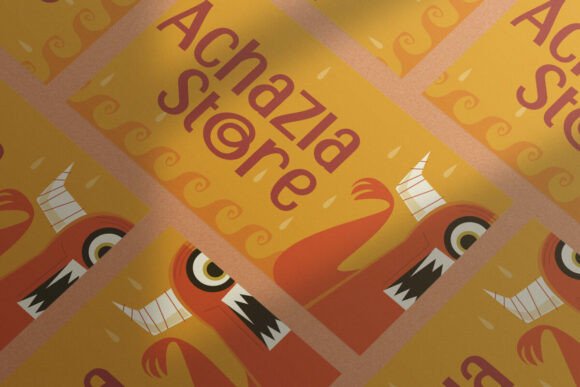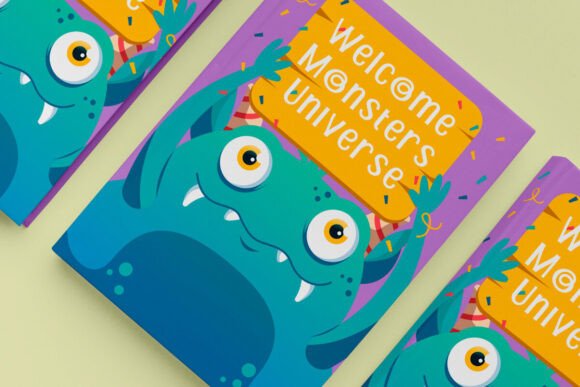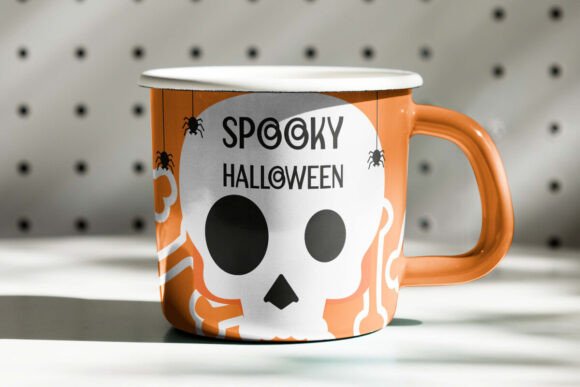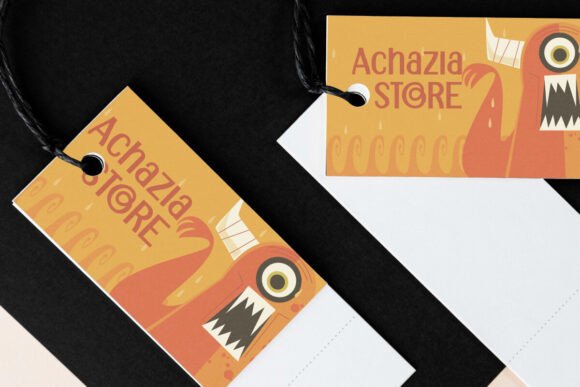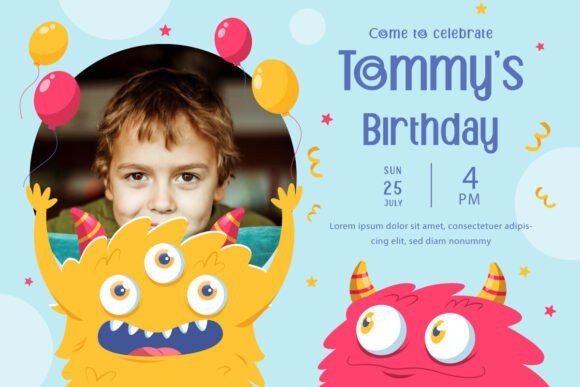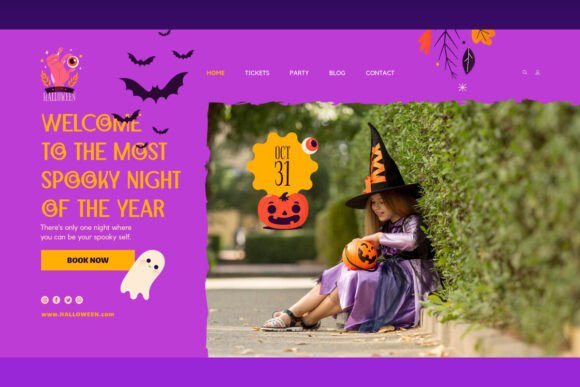
Introduction to Funny Monster Font
Funny Monster Font is a playful and quirky sans-serif display typeface.
Inspired by cute cartoon movies, this font features a highly engaging style that suits a wide range of creative ideas It’s perfect for businesses such as accessories, cafes, entertainment, fashion, kids’ products, parties or events, photography, printing, publishing, restaurants, writers, and many more.